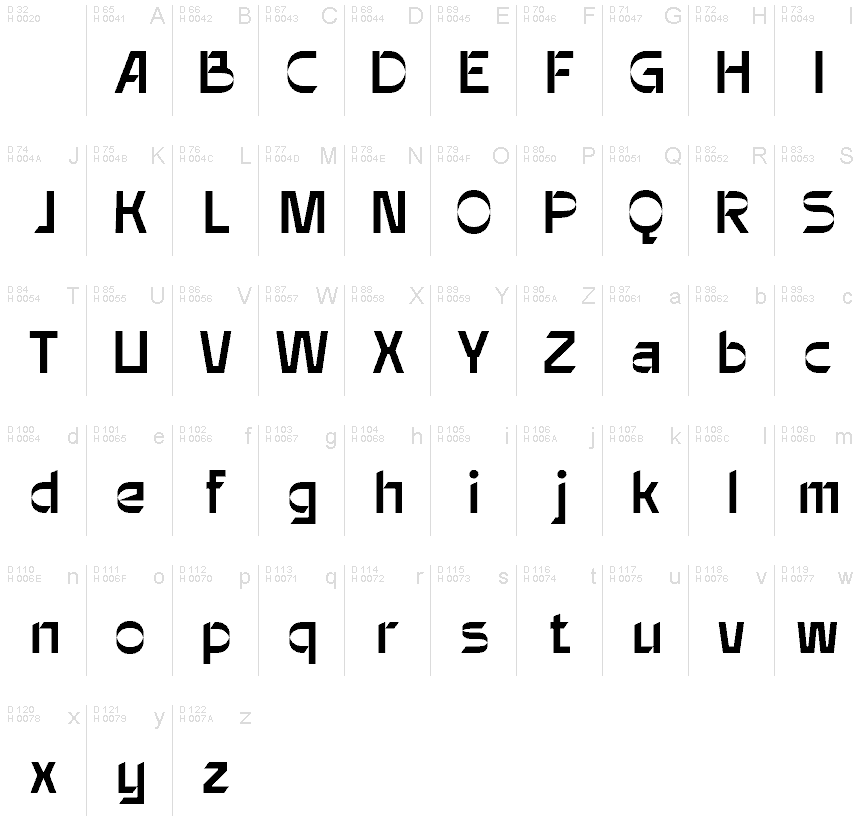
CS Belgia Demo Regular
CS Belgia font by Craft Supply Co. is a free modernist sans serif font with strong geometric shapes and a minimalist spirit. Every rounding is neat, the edges are well polished, and the futuristic elements add to a wonderful display that reflects technological influence.
\nUse CS Belgia in logos, packaging projects, app interfaces, UI/UX designs, social media headlines, blog post titles, magazine covers or inside articles for that extra touch of creativity. It’s perfectly charming in branding projects for companies who’d like to maintain an upward-to-the-future impression among their followers.